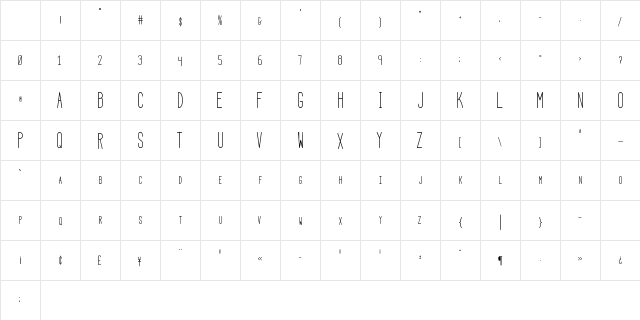
Complete HBM Serenity Condensed glyph index. Displaying only characters natively supported by HBM Serenity Condensed font.
HBM Serenity is a composed and adaptable typeface that performs quietly and consistently across a wide range of design contexts. Its narrow stance lets it pack a punch even in space-constrained designs.